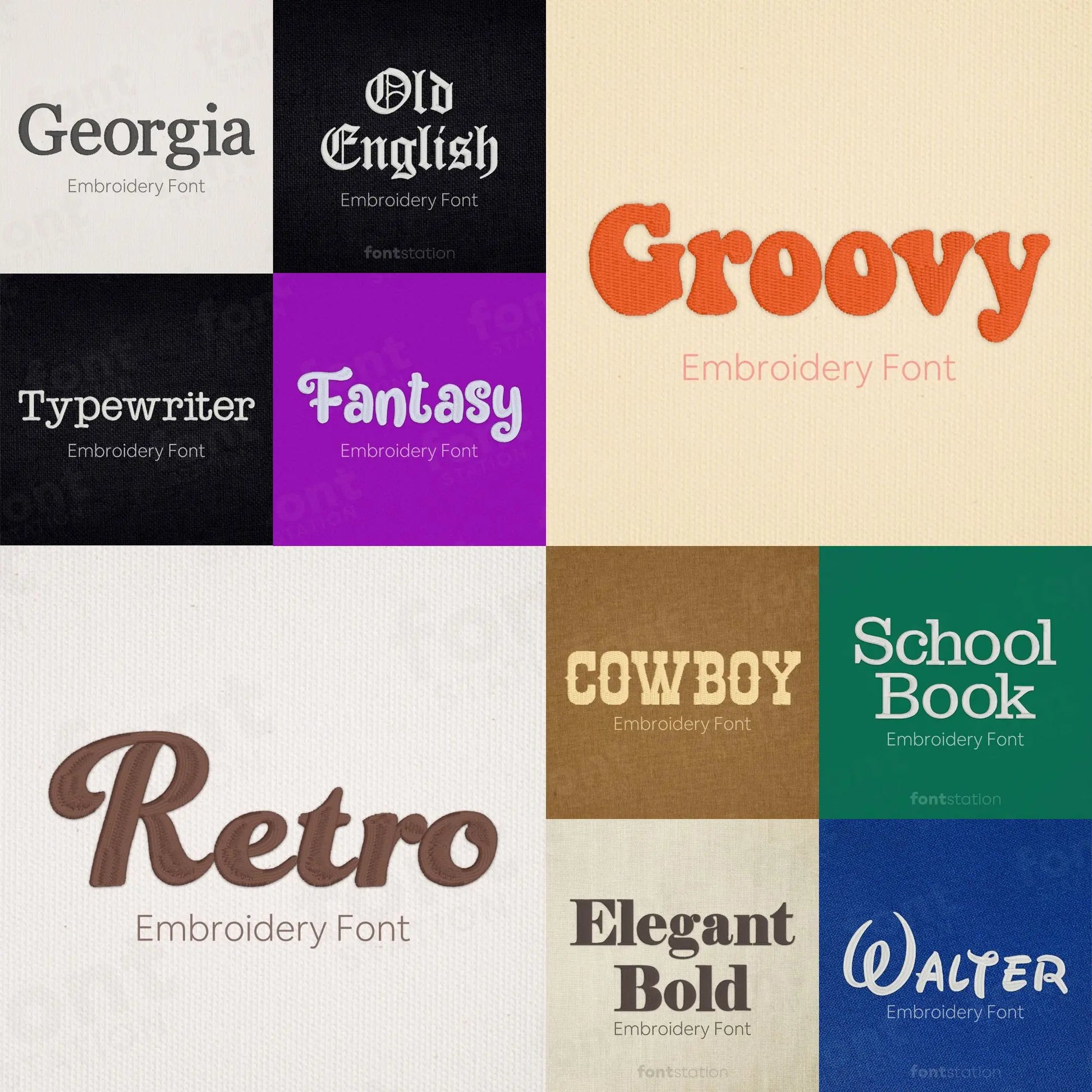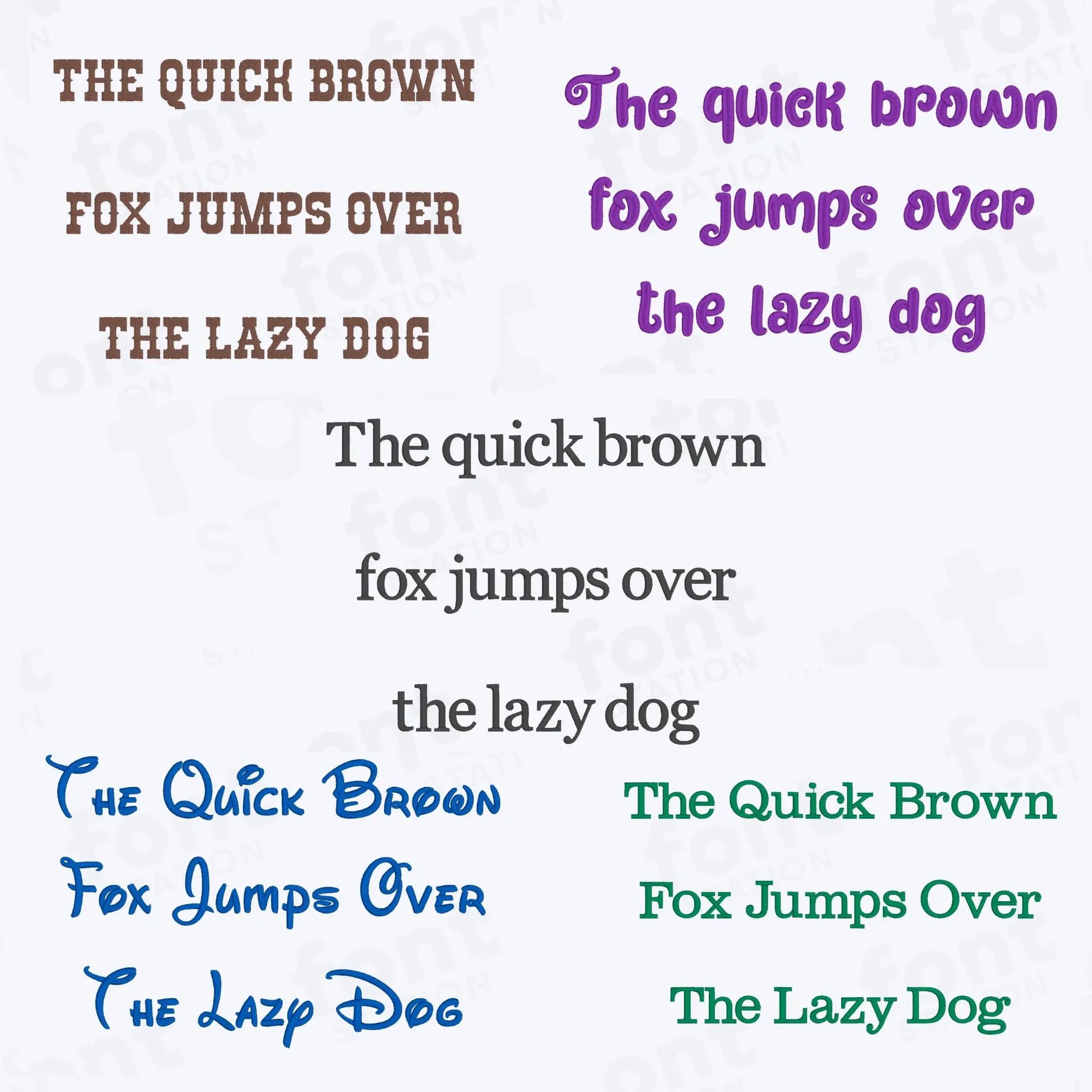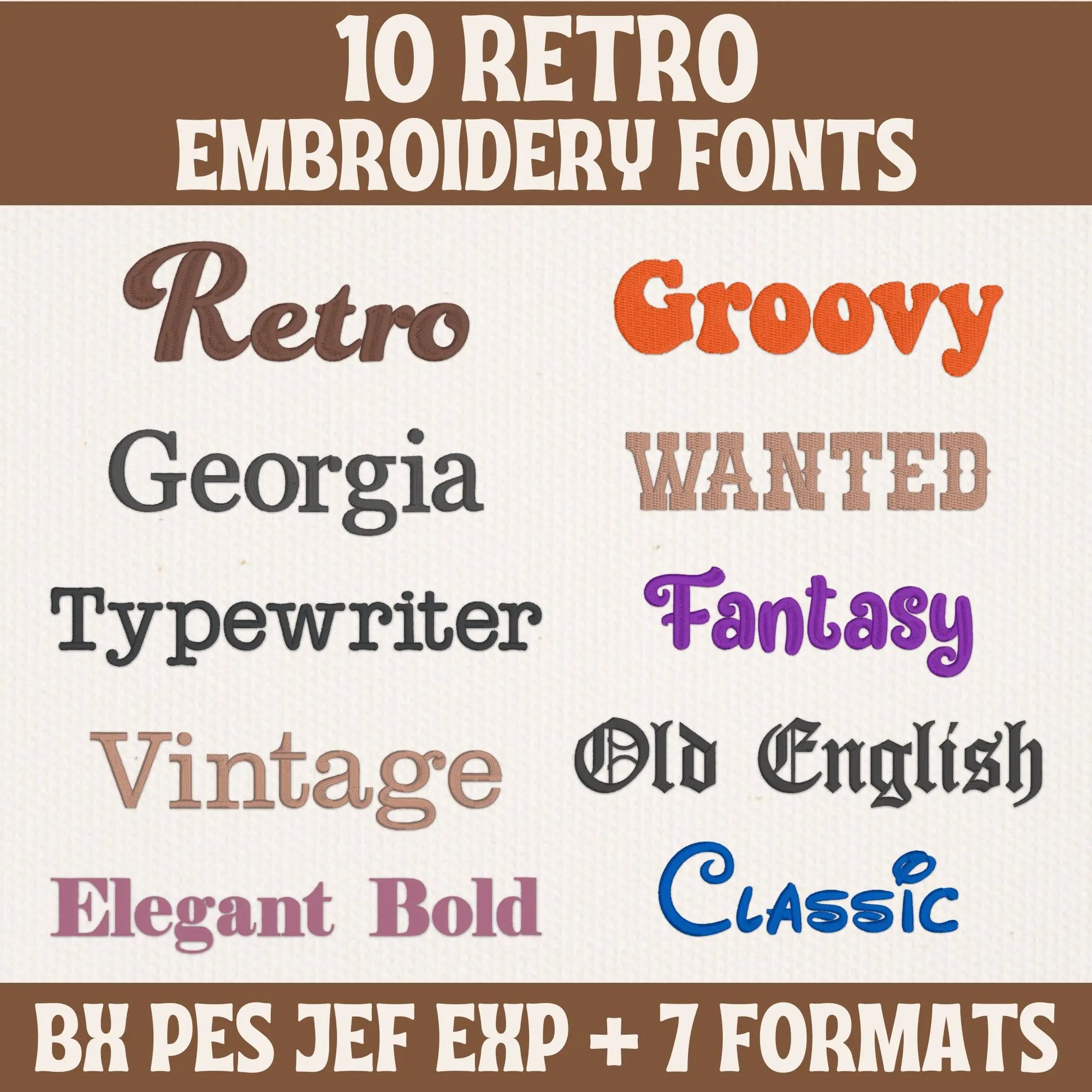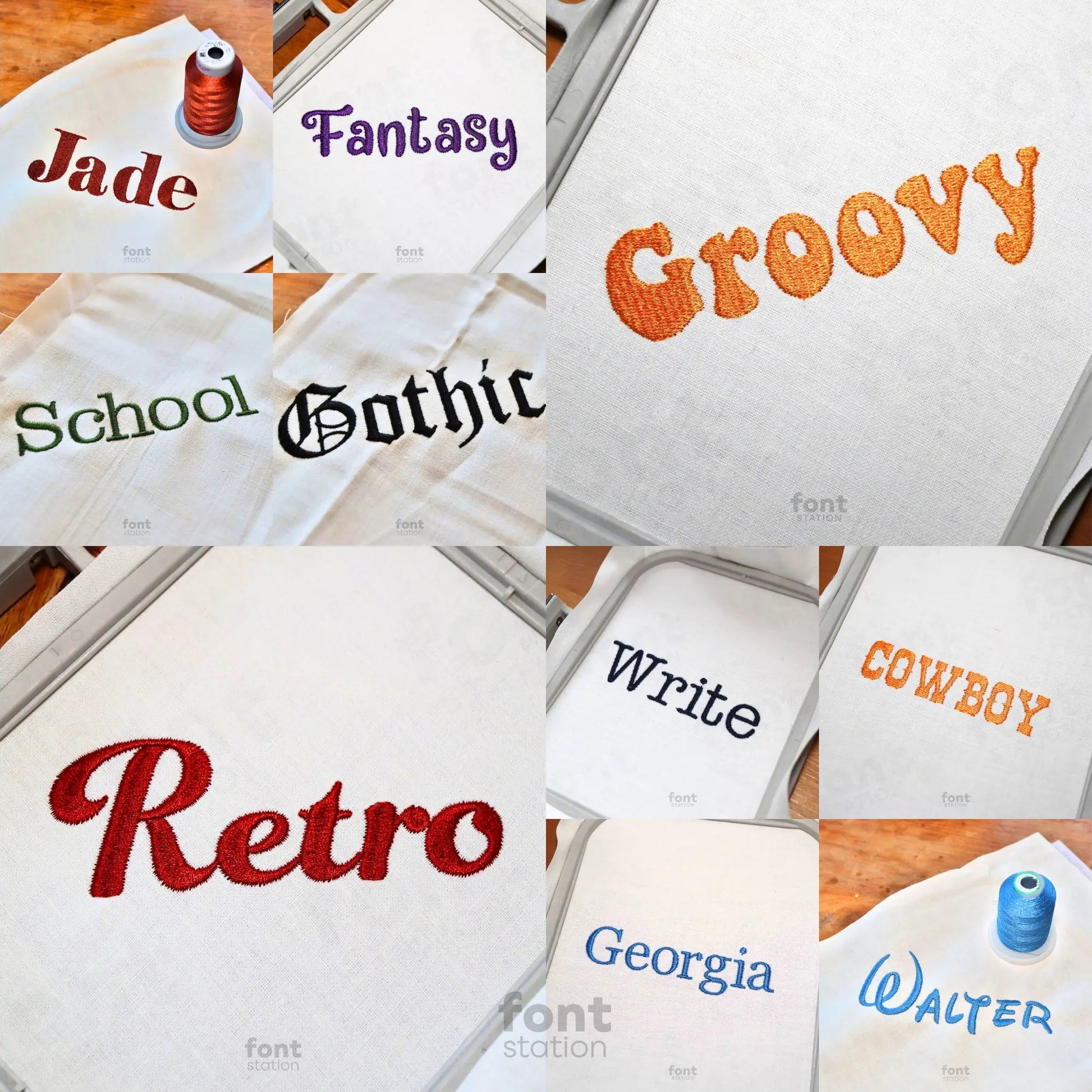
Retro Embroidery Fonts Bundle
Introducing our Retro Embroidery Fonts Bundle - a vintage-style alphabet collection designed to stitch bold, groovy letters on your embroidery machine. Perfect for retro-inspired projects and creative designs full of old-school charm.
Retro Embroidery Fonts Bundle - vintage-style embroidery alphabets with groovy charm
Bring a touch of nostalgia to your embroidery projects with our Retro Embroidery Fonts Bundle. This stylish collection features 10 vintage-inspired embroidery fonts designed to deliver bold, groovy, and old-school character to your creations. Whether you're stitching names, quotes, or standout titles, each embroidery font includes a fully digitized alphabet of machine-ready letters for smooth, clean results on any embroidery machine.